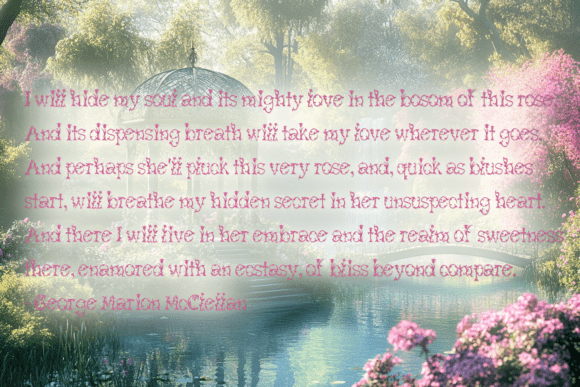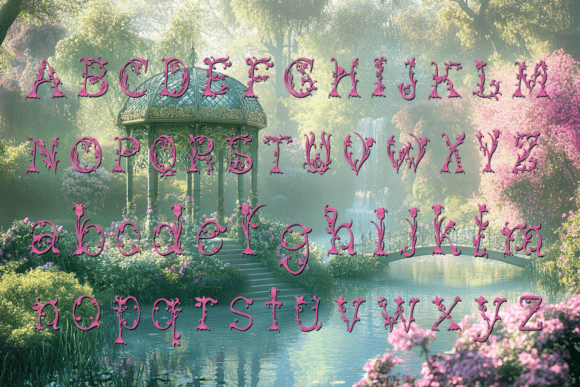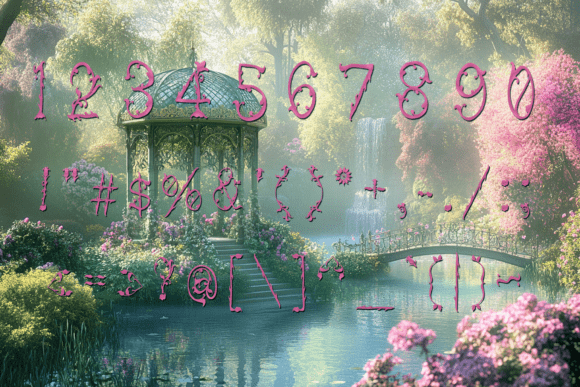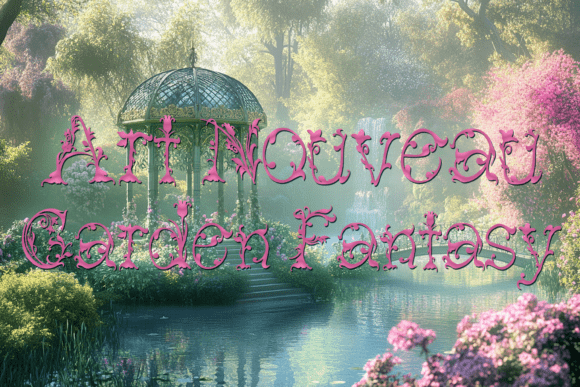
Step into an Enchanting World of Elegance with Art Nouveau Garden Fantasy Font
Imagine yourself in a serene garden, surrounded by lush greenery and vibrant flowers, with the soft rustle of leaves and the gentle chirping of birds in the air. This idyllic scene is brought to life with the “Art Nouveau Garden Fantasy” font, a whimsical typeface that embodies the essence of the Art Nouveau era. Inspired by the flowing lines and floral motifs characteristic of this iconic style, this font is the perfect addition to any design project that requires a touch of elegance and natural beauty.
The Art Nouveau Era: A Time of Beauty and Elegance
The Art Nouveau movement, which emerged in the late 19th century, was a celebration of beauty, craftsmanship, and the natural world. Characterized by sinuous lines, organic forms, and a sense of dynamism, Art Nouveau influenced various art forms, including architecture, furniture, jewelry, and, of course, typography. The “Art Nouveau Garden Fantasy” font is a nod to this era, capturing its essence and bringing it to life in a unique and captivating way.
A Font that Embodies the Spirit of Nature
The “Art Nouveau Garden Fantasy” font is a masterpiece of ornate typography, featuring intricate, nature-inspired details that will transport you to a world of enchantment. Delicate curves, botanical embellishments, and flowing lines come together to create a truly magical typeface that adds a touch of whimsy to any project. Whether you’re designing wedding invitations, garden-themed materials, vintage posters, or decorative prints, this font is sure to captivate your audience and leave a lasting impression.
The versatility of the “Art Nouveau Garden Fantasy” font makes it an ideal choice for a wide range of design projects. Here are just a few ideas to get you started:
- Wedding Invitations: Add a touch of romance and elegance to your wedding invitations, save-the-date cards, and other wedding-related materials.
- Garden-Themed Designs: Create beautiful garden-themed designs, including garden party invitations, flower arrangement guides, and gardening blog headers.
- Vintage Posters: Transport your audience to a bygone era with vintage-style posters that showcase the beauty of the “Art Nouveau Garden Fantasy” font.
- Decorative Prints: Add a touch of whimsy to your decorative prints, including wall art, stationery, and gift tags.
- Branding: Use the “Art Nouveau Garden Fantasy” font to create a unique and captivating brand identity that sets your business apart.
Why Choose the Art Nouveau Garden Fantasy Font?
With so many fonts available, why choose the “Art Nouveau Garden Fantasy” font? Here are just a few reasons why this font stands out:
- Unique and Captivating: The “Art Nouveau Garden Fantasy” font is a true showstopper, with its intricate details and flowing lines capturing the essence of the Art Nouveau era.
- Highly Versatile: This font can be used for a wide range of design projects, from wedding invitations to branding materials.
- Elegant and Sophisticated: The “Art Nouveau Garden Fantasy” font exudes elegance and sophistication, making it perfect for designers and crafters who want to add a touch of luxury to their work.
In conclusion, the “Art Nouveau Garden Fantasy” font is a true masterpiece of ornate typography that will transport you to a world of enchantment and elegance. With its intricate details, flowing lines, and botanical embellishments, this font is perfect for designers and crafters who want to add a touch of natural beauty and whimsy to their work. Whether you’re designing wedding invitations, garden-themed materials, or branding materials, this font is sure to captivate your audience and leave a lasting impression.